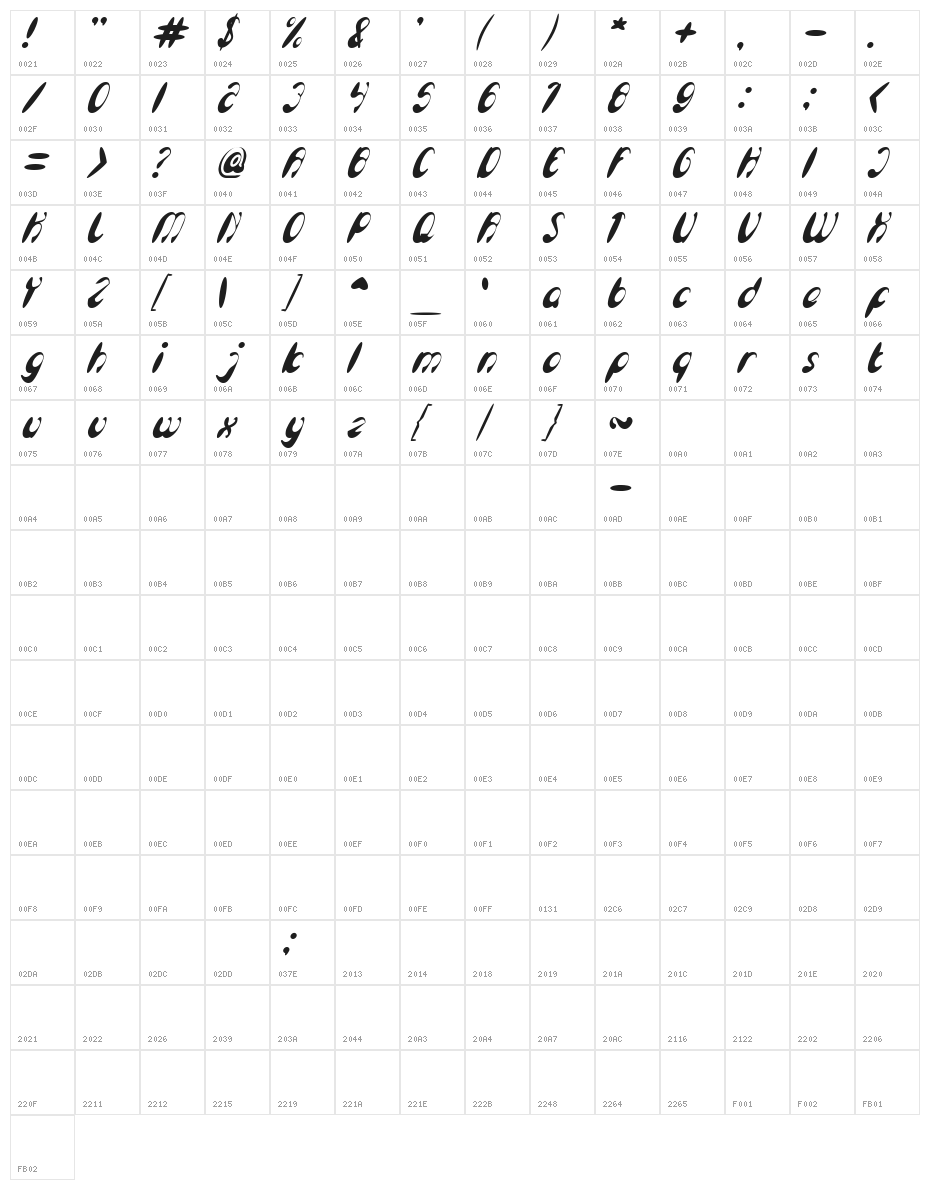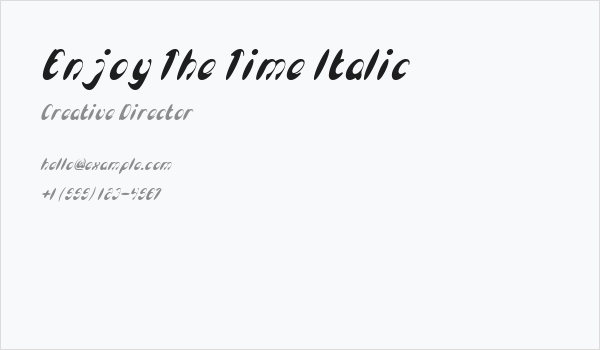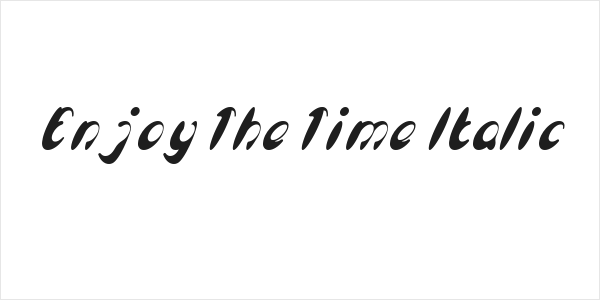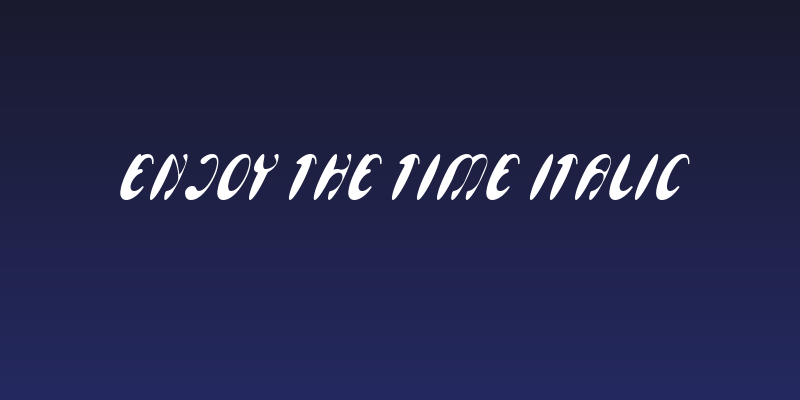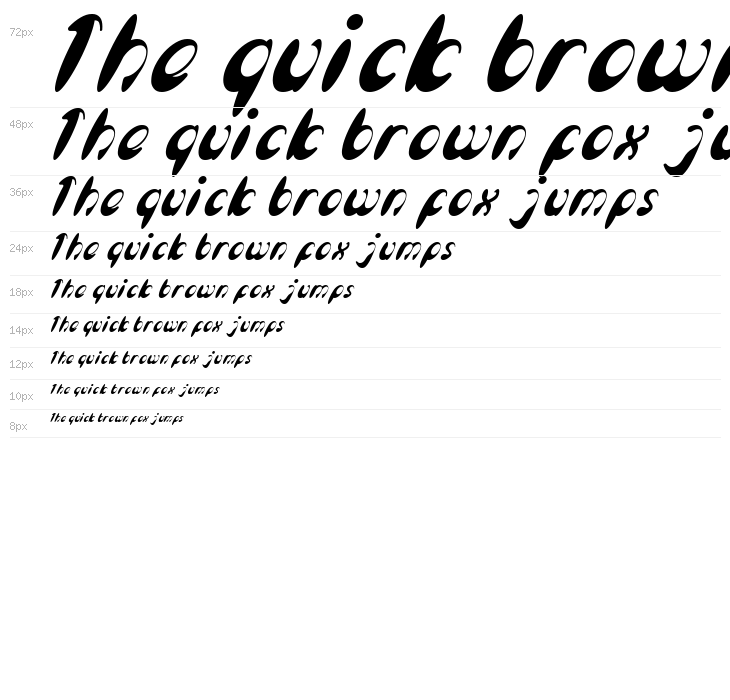
Enjoy The Time Italic Font
Enjoy The Time Italic Description
This font features a playful and dynamic script style with a distinct italic slant. The characters are bold and fluid, with a sense of motion that adds a lively and energetic feel. The strokes are thick and rounded, giving the font a friendly and approachable appearance. The uppercase and lowercase letters maintain a consistent style, while the numbers and special characters integrate seamlessly with the overall design. This font's unique character shapes and flowing lines make it ideal for creative and expressive projects.
| Proposed Projects | Ideal for greeting cards, invitations, branding, and creative posters. |